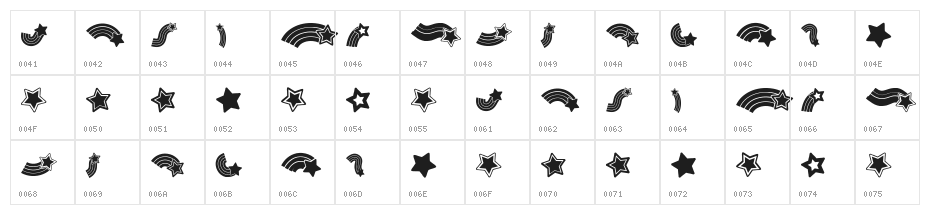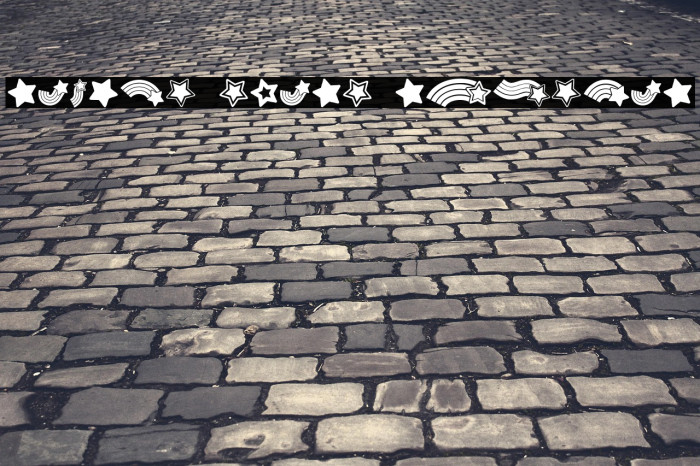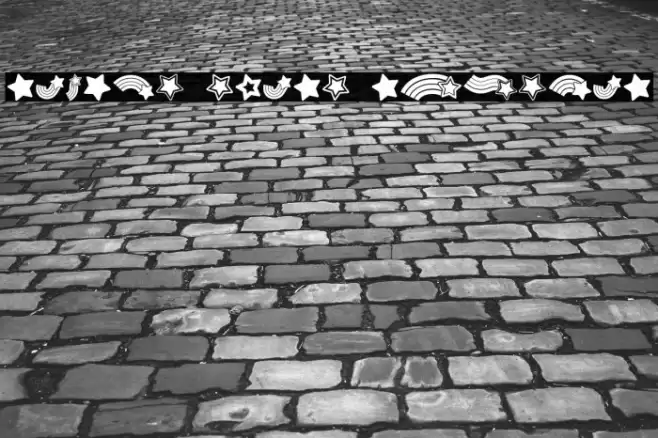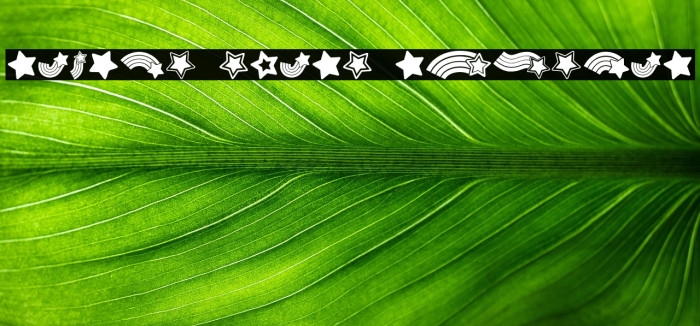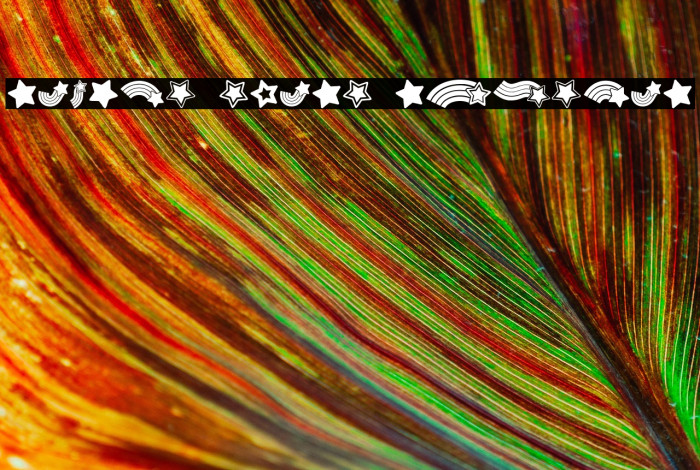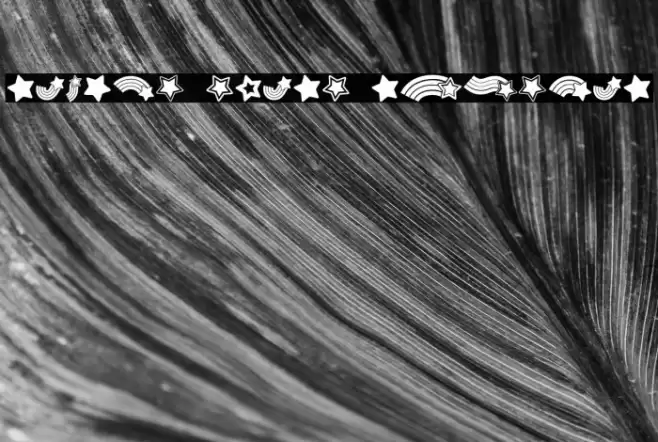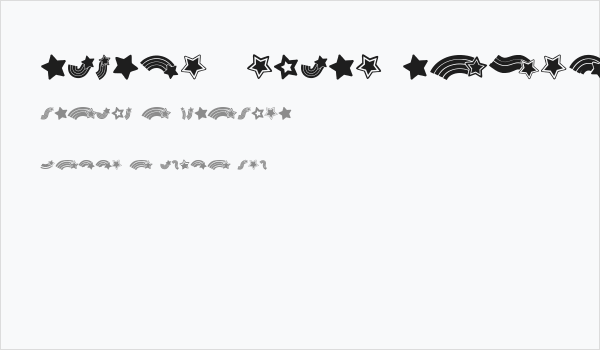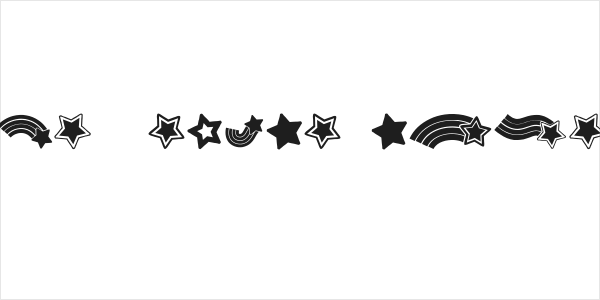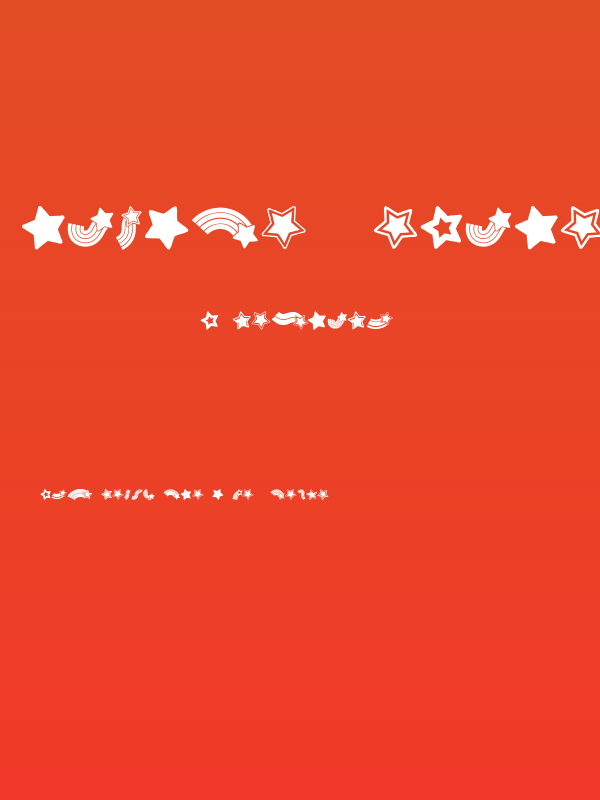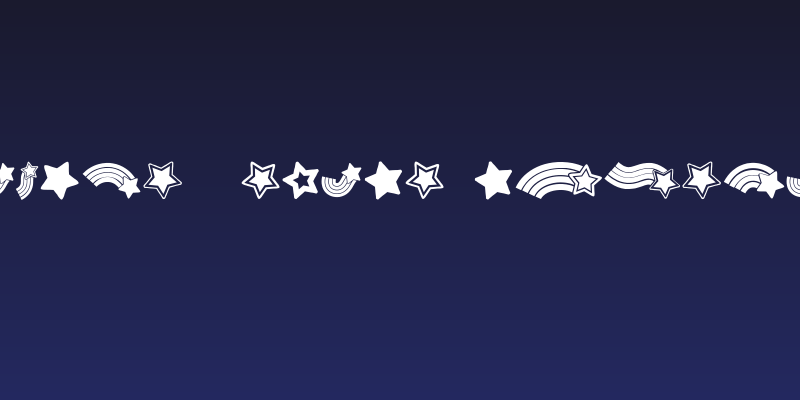
Rainbow Stars Regular Font
Rainbow Stars Regular Description
This decorative font features a playful and whimsical design, incorporating elements such as stars and rainbows. The characters are bold and striking, with a mix of solid and outlined shapes that create a dynamic visual effect. The font is highly stylized, making it ideal for projects that require a fun and energetic aesthetic. The use of stars and rainbows suggests themes of joy, creativity, and imagination, making it suitable for children's projects, party invitations, or any design that aims to evoke a sense of wonder and excitement.
| Overall Style | Whimsical |
| Use Case | Logos, Headlines, Decorative elements |
| Proposed Projects | Ideal for children's books, party invitations, playful branding, and creative posters. |